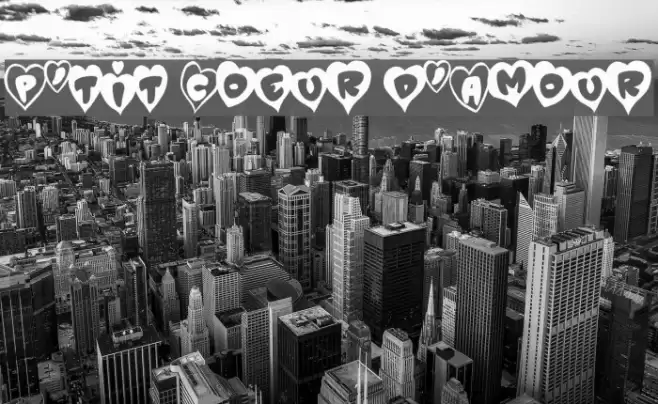
P'tit Coeur d'Amour Font
P'tit Coeur d'Amour Description
This playful and decorative font features each character enclosed within a heart shape, adding a whimsical and romantic touch. The letters are bold and slightly rounded, with a consistent thickness that ensures readability despite the unique design. The heart outlines are prominent, providing a distinct separation between each character. This font is ideal for projects that aim to convey love, affection, or a fun, lighthearted theme. The numbers and special characters follow the same heart-encased style, maintaining uniformity across the entire set.
A decorative font with characters enclosed in heart shapes, perfect for romantic themes from Uncategorized fonts.